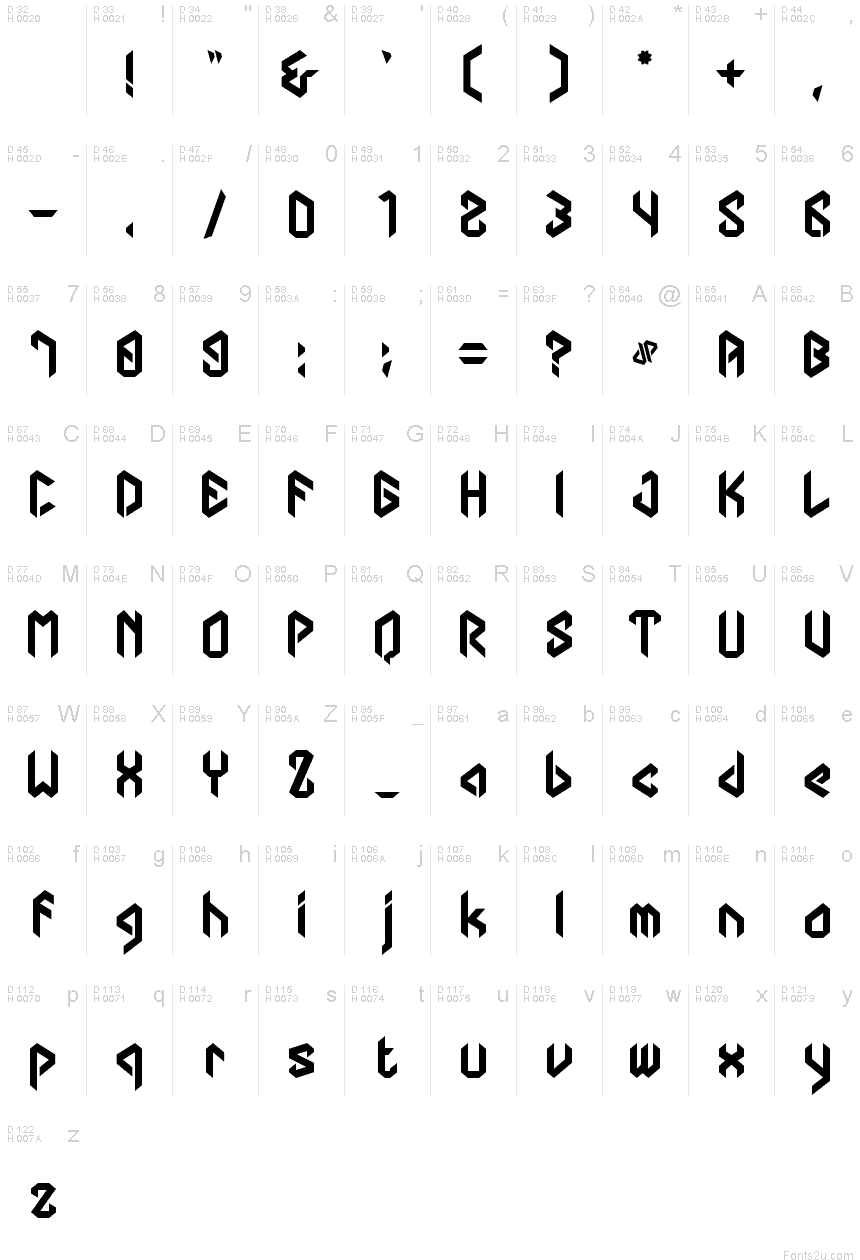
DHF Dipanegara, designed by Dexsar Harry Anugrah, is a free modern Gothic display font with an angular silhouette. Wide black strokes, sharp diagonal cuts, and open geometric interiors give the lettering an architectural profile.
It can push both metal album artwork and fantasy game graphics toward a darker, ceremonial look. The same hard-edged forms suit event posters and merchandise built around medieval or martial themes. Against crests, blades, or fortress imagery, the letters can become part of the emblem.
DHF Dipanegara by Dexsar Harry Anugrah is a free Gothic display font.
The Special Font For Stmik Dipanegara Makassar. This font was inspired by DIPANEGARA LOGO that is dp. I like the DIPANEGARA LOGO so that i try for making a font is according to DIPANEGARA LOGO theme...